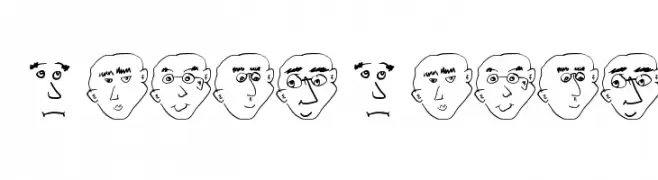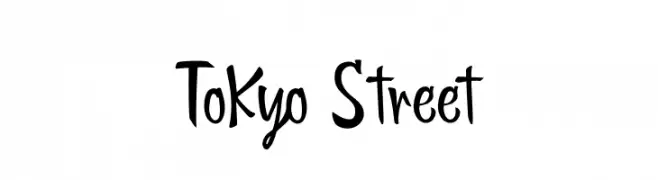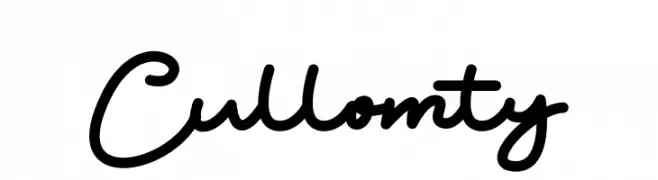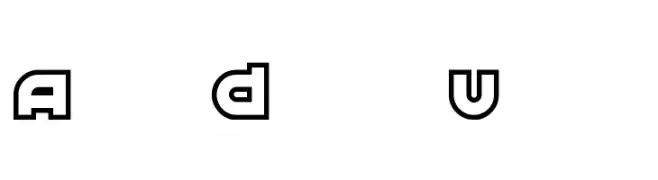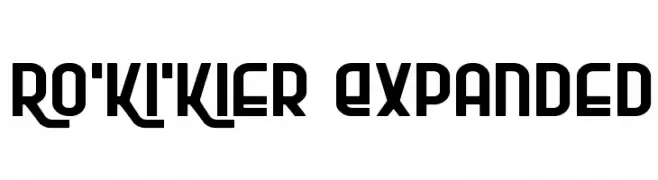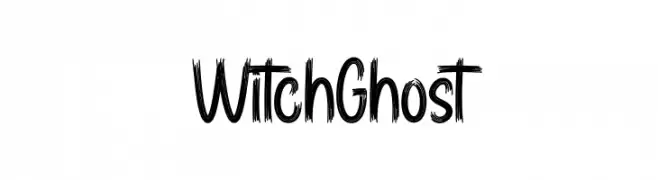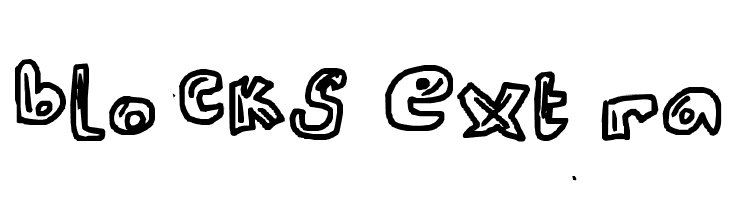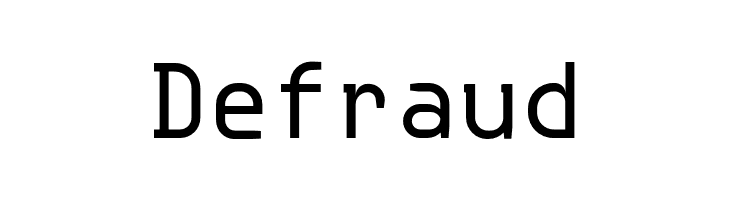
Playful, hand-drawn font made of expressive cartoon faces.
A playful, hand-drawn font with bold, dynamic strokes.
A modern, geometric sans-serif font with a clean and professional look.
A lively and energetic script font with a handwritten feel.
A bold, geometric, and futuristic outlined font.
A bold, geometric font with a modern and futuristic design, featuring expanded width for clarity.
A spooky, hand-drawn font with jagged edges and a ghostly appearance.
A bold, decorative font with a dynamic shadow effect.
A bold, decorative font with intricate doodle patterns, perfect for artistic projects.